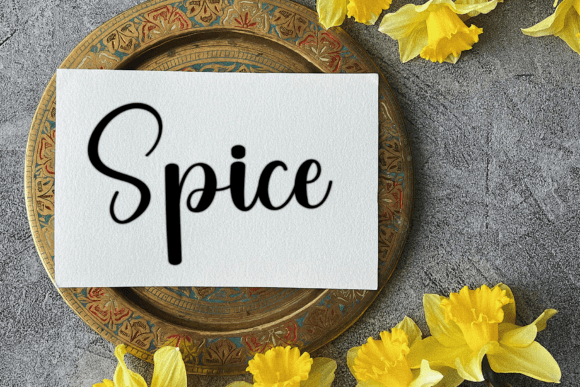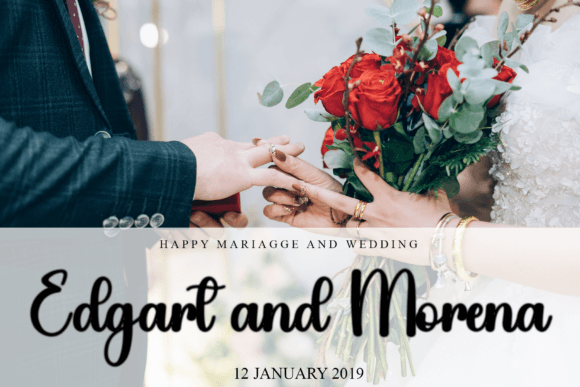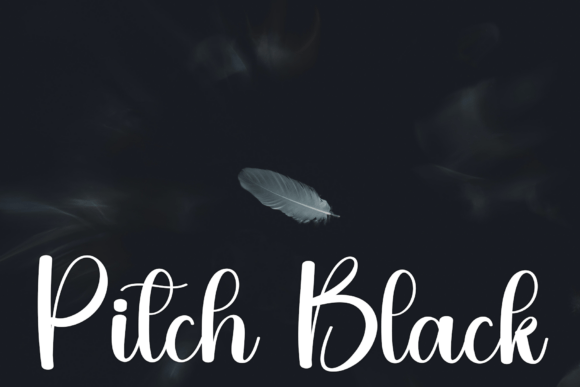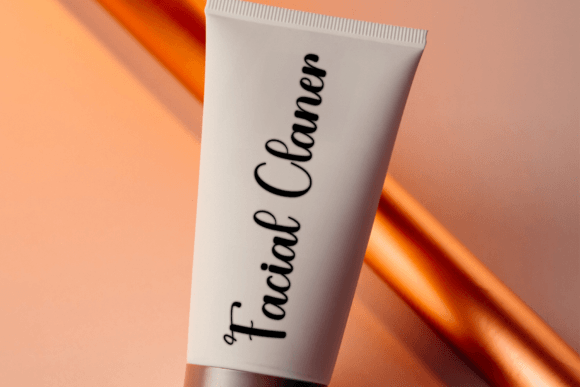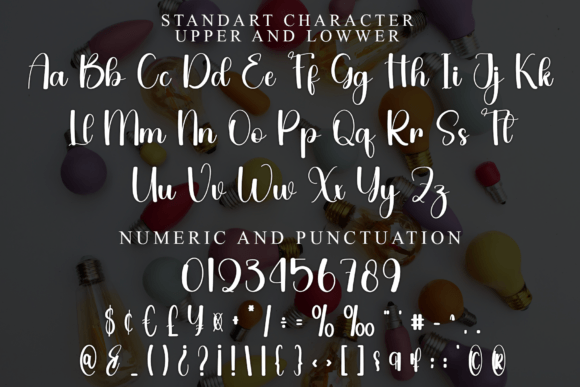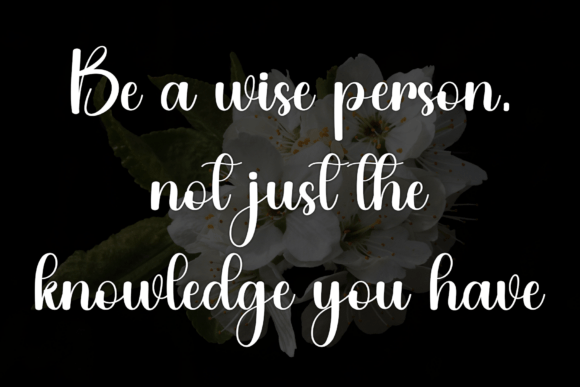
Introducing Grincher Font: Elevate Your Designs with Elegance and Sophistication
In the world of typography, a font can make or break the aesthetic of a design project. For designers and crafters seeking to add a touch of elegance and sophistication to their work, Grincher Font is an exceptional choice. This stylish, beautiful, and elegant font boasts a contemporary atmosphere and impeccable form, inspired by timeless classic calligraphy.
The Inspiration Behind Grincher Font
Grincher Font draws its inspiration from the classic calligraphy of the past, yet presents itself with a modern twist. This blend of traditional and contemporary elements results in a font that is not only visually stunning but also highly versatile. Whether you’re working on a branding project, packaging, or any other design endeavor, Grincher Font is designed to enhance the beauty of your work.
Key Features of Grincher Font
• Balanced and Varied: The font is meticulously crafted to offer a balanced and varied appearance. This ensures that your text remains legible and aesthetically pleasing, whether it’s used in headings, paragraphs, or decorative pieces.
• Contemporary Atmosphere: Despite its classic inspiration, Grincher Font exudes a contemporary atmosphere. This makes it an excellent choice for designers looking to create modern, yet sophisticated designs.
• Elegant and Stylish: The elegance and style of Grincher Font are undeniable. Its beautiful strokes and classic calligraphy-inspired letterforms make it perfect for projects that demand a high level of sophistication.
Applications of Grincher Font
Grincher Font’s versatility makes it suitable for a wide range of design projects. Here are some applications where Grincher Font truly shines:
• Branding and Logotypes: Create memorable and elegant brand identities with Grincher Font. Its unique and stylish appearance can help your brand stand out.
• Packaging Design: Add a touch of sophistication to your product packaging. Grincher Font’s elegant look is sure to attract attention and convey a sense of luxury.
• Stationery and Invitations: Whether it’s wedding invitations, business cards, or letterheads, Grincher Font can add an elegant touch to your stationery designs.
• Digital Media: From website headers to social media graphics, Grincher Font can elevate the visual appeal of your digital content.
Grincher Font is a stylish, beautiful, and elegant addition to any designer’s toolkit. Its inspiration from timeless classic calligraphy, combined with a contemporary atmosphere and impeccable form, makes it a versatile and sophisticated choice. With its PUA encoding, balanced and varied appearance, and elegant strokes, Grincher Font is poised to elevate the beauty of your projects. Whether you’re a professional designer or a crafting enthusiast, Grincher Font offers the perfect blend of style and functionality to bring your creative visions to life.